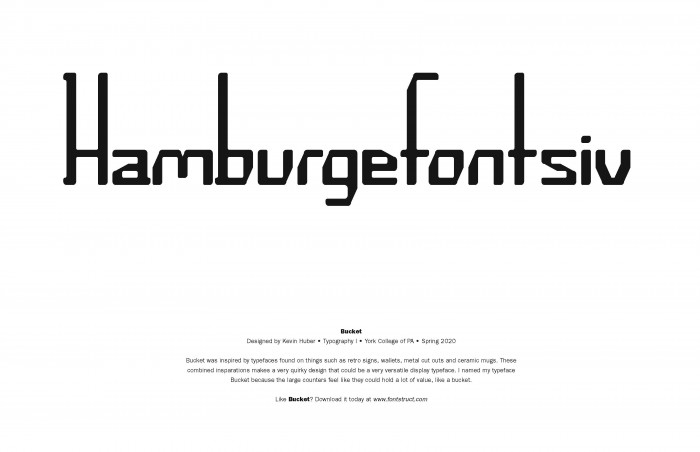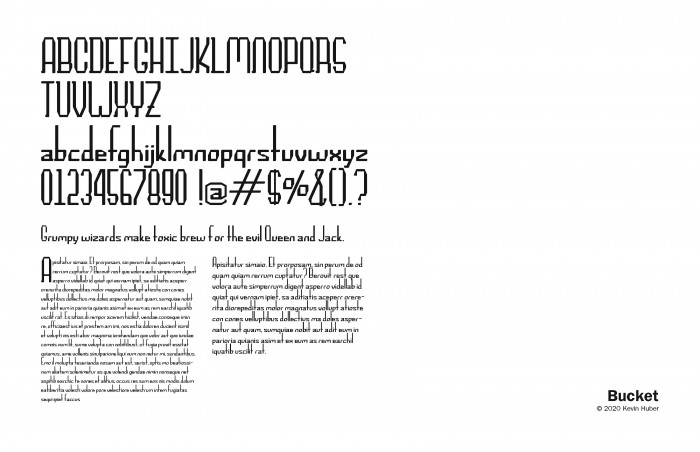
• Bucket was inspired by typefaces found things such as retro signs, wallets, metal cut outs and ceramic mugs. These combined insparations makes a very quirky design that could be a very versatile display typeface. I named my typeface Bucket because the large counters feel like they could hold a lot of value, like a bucket.